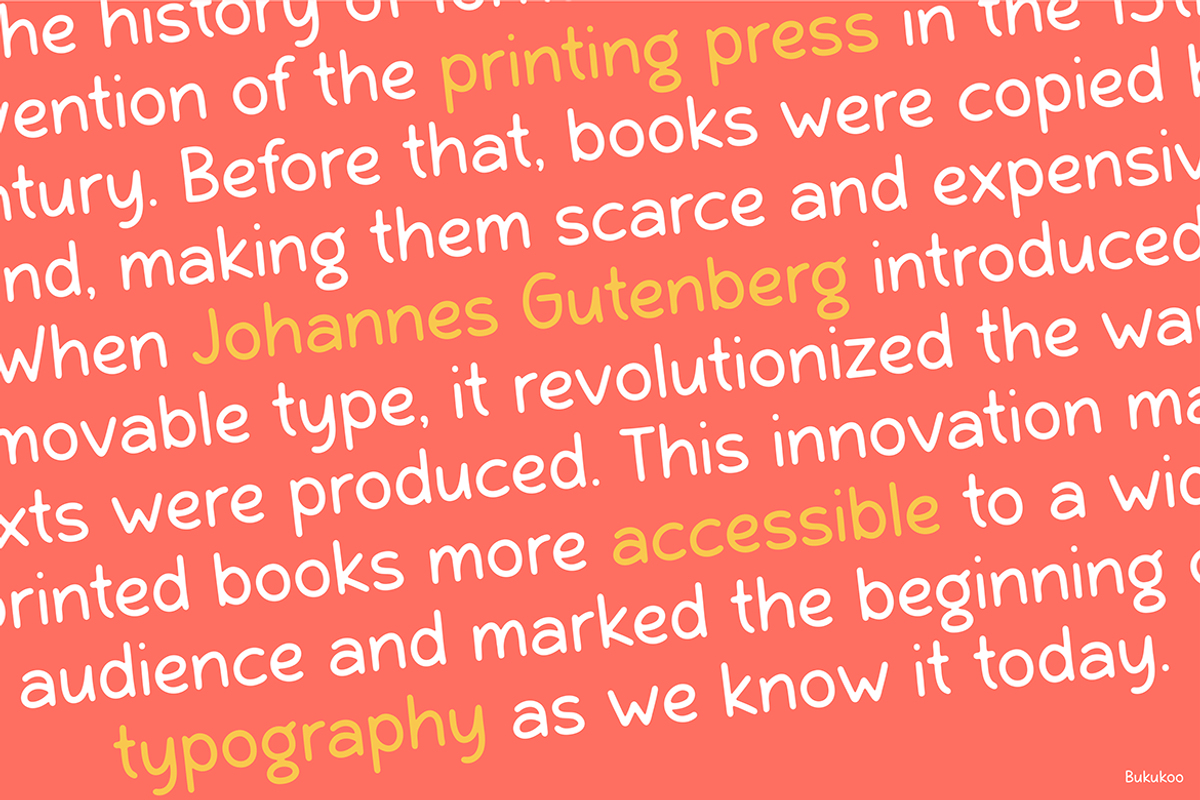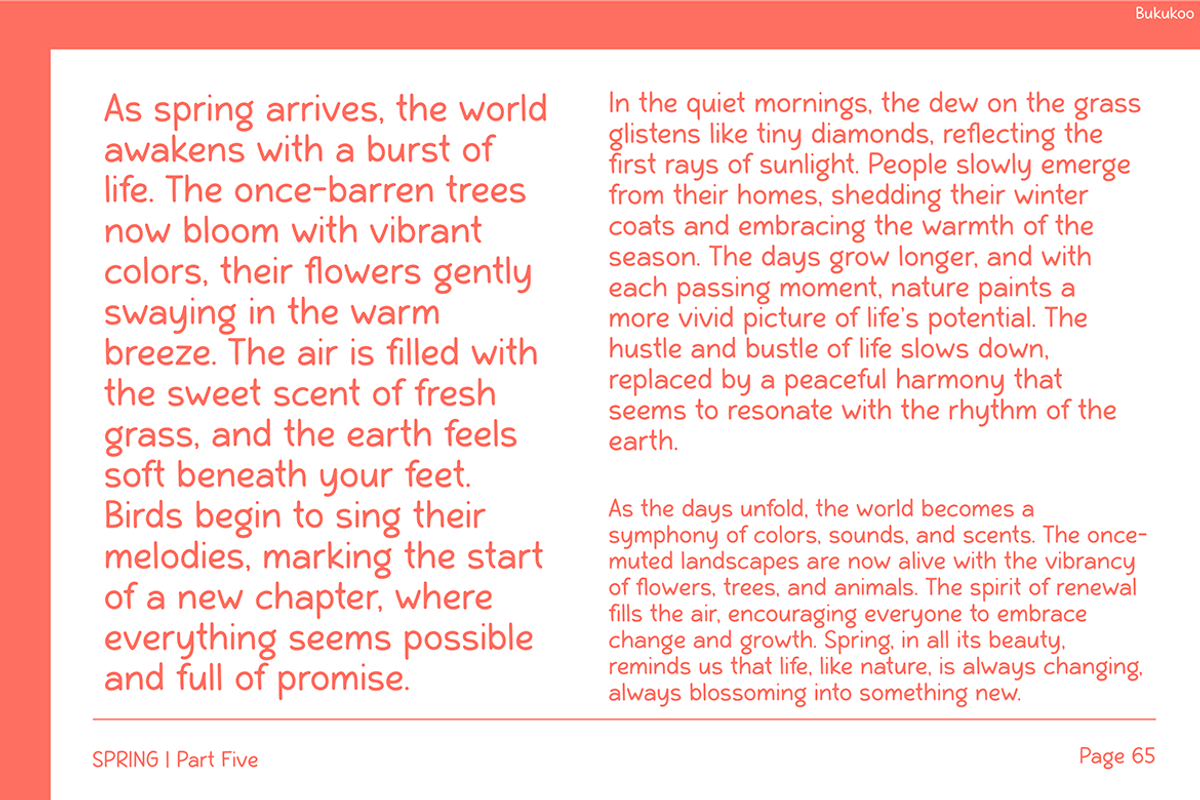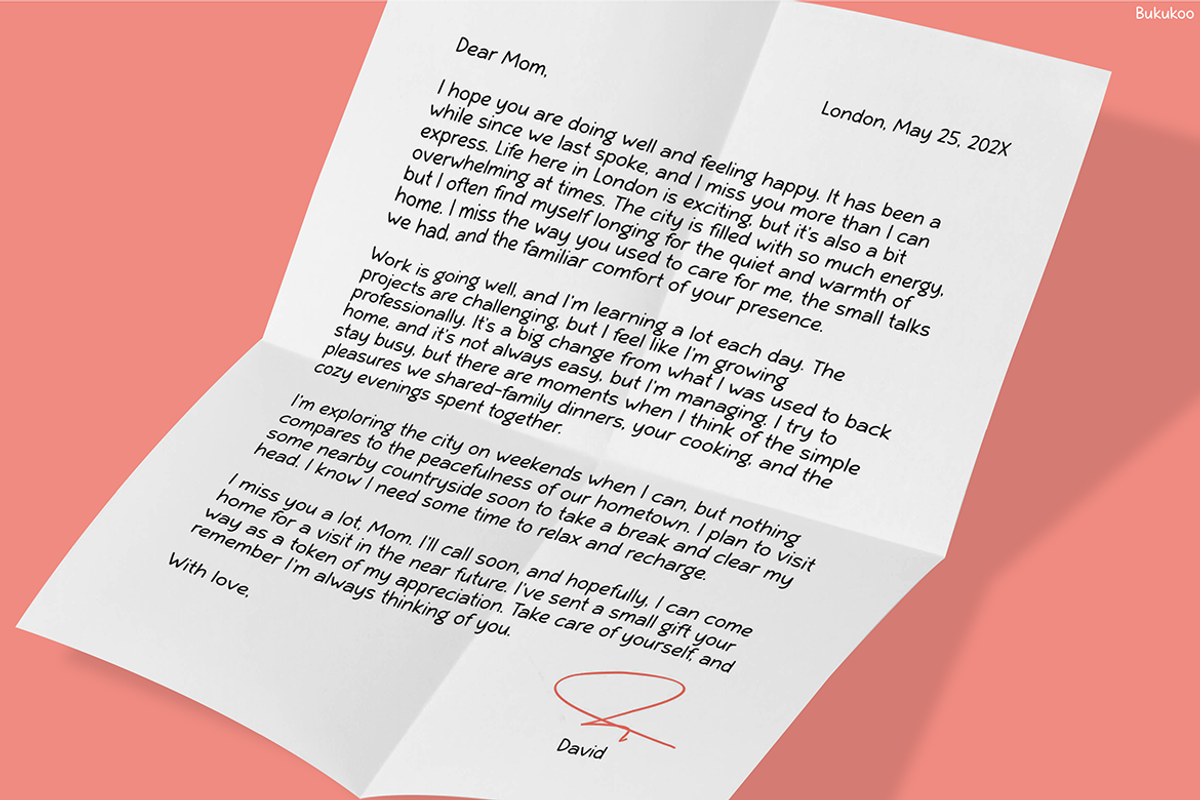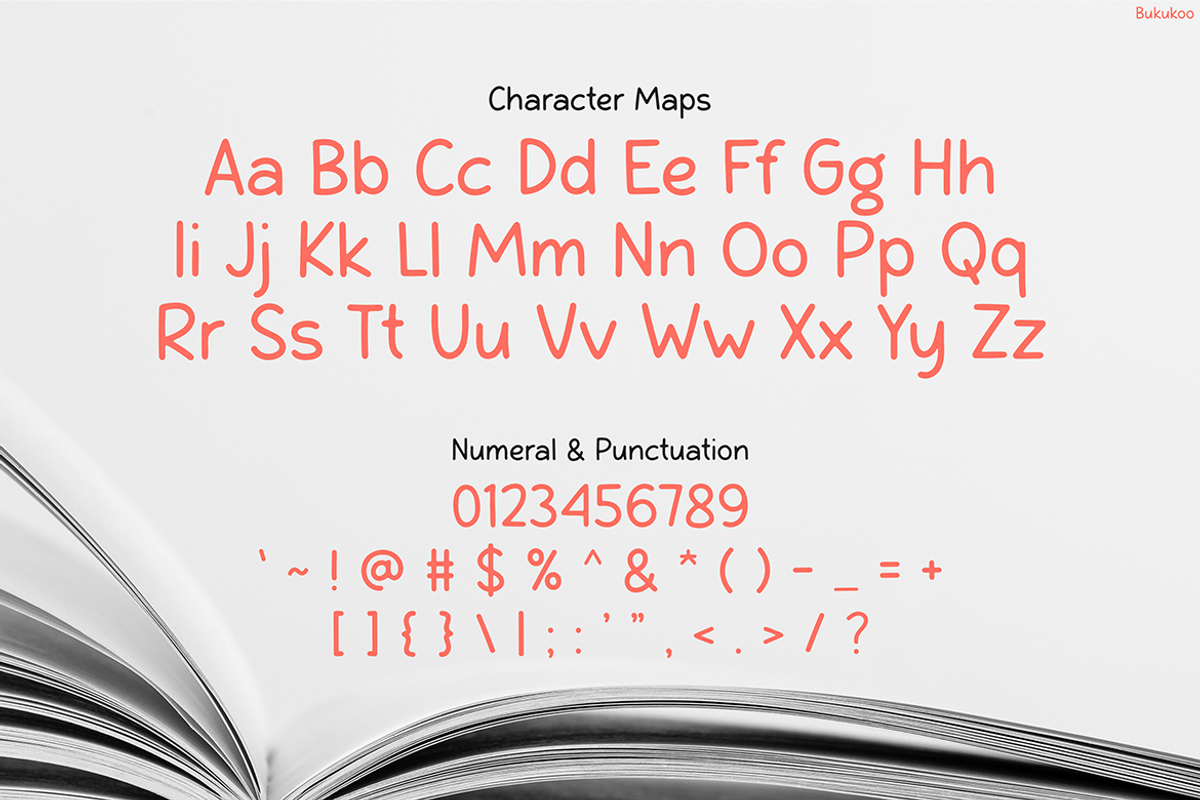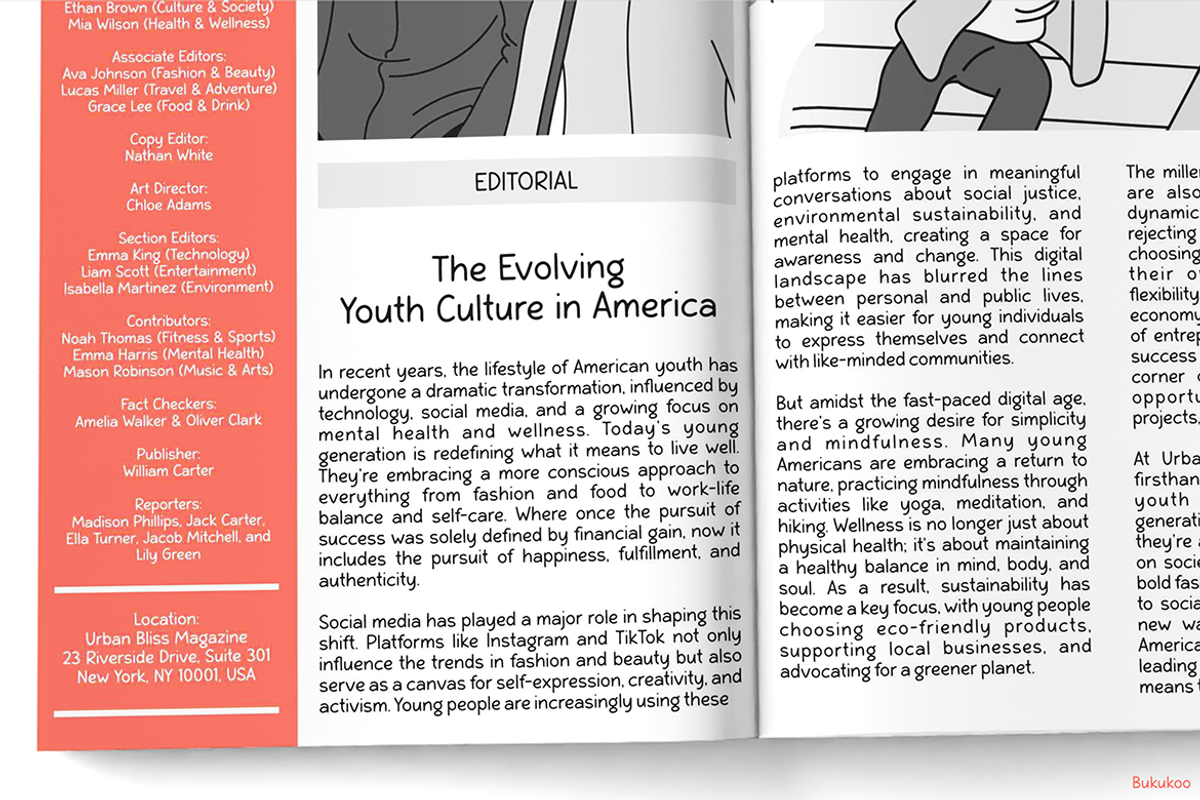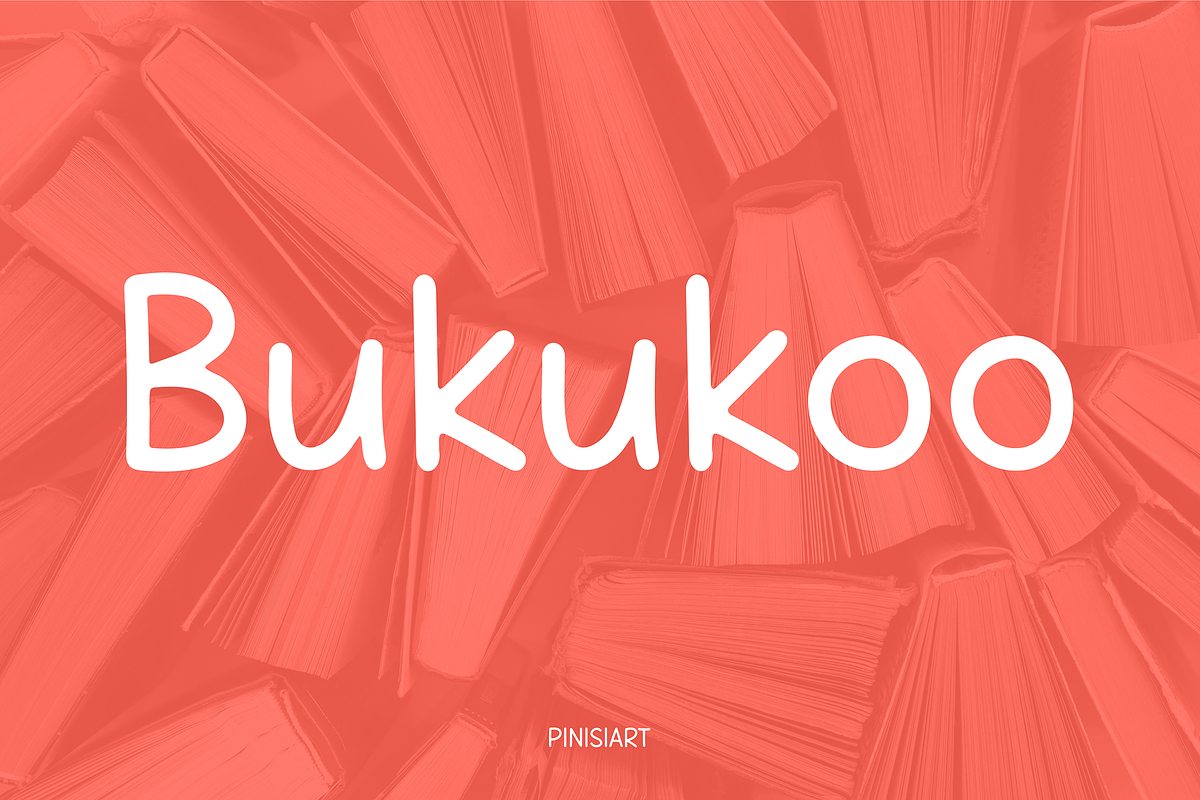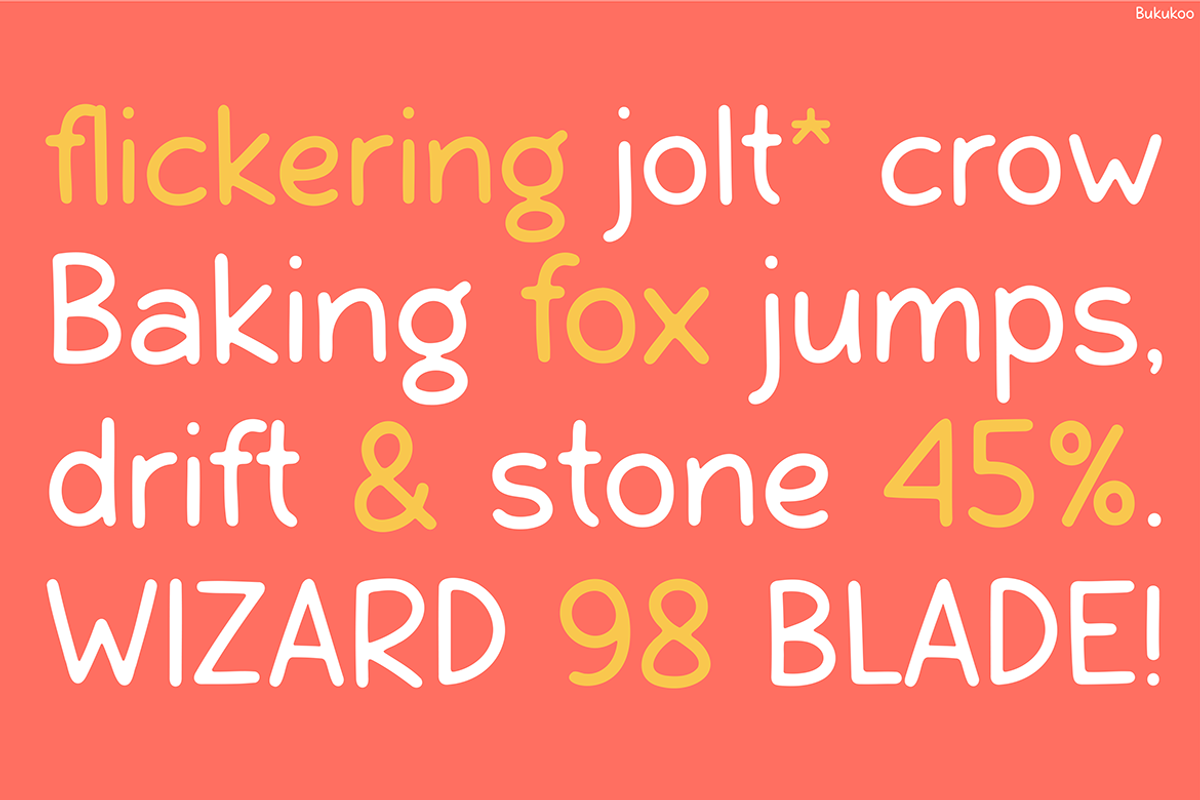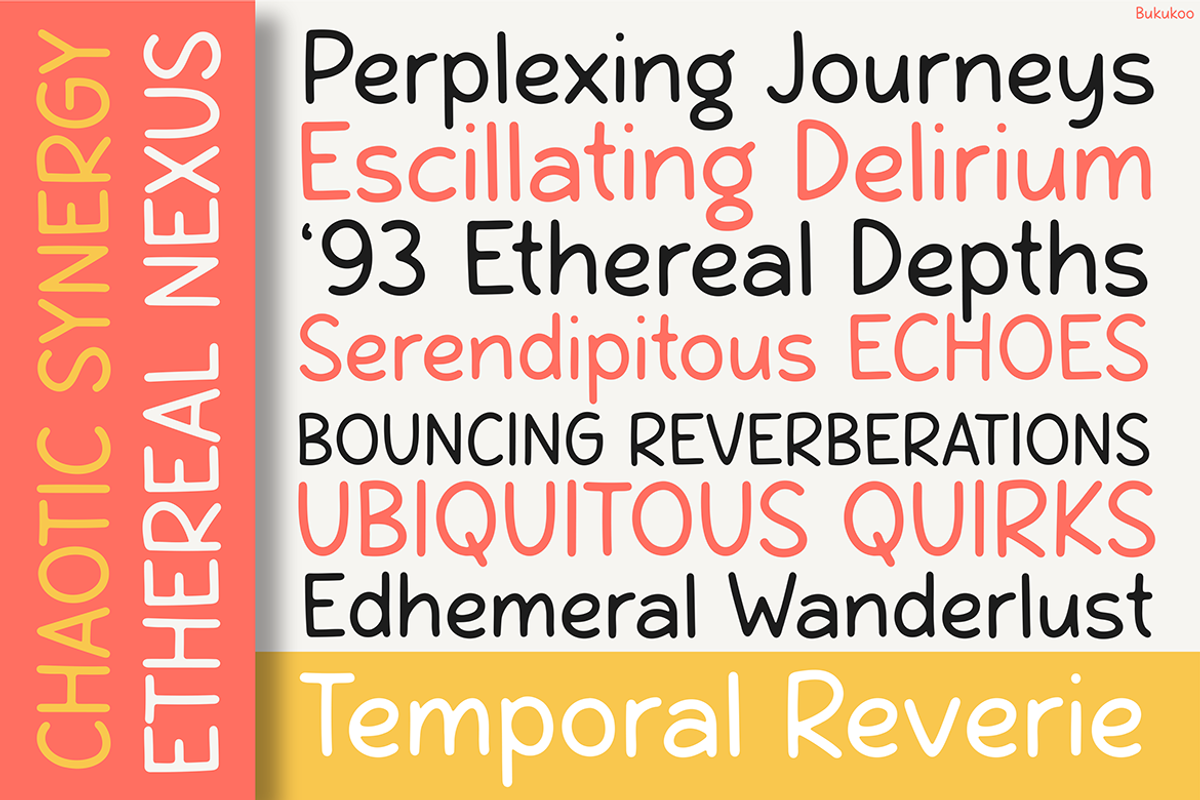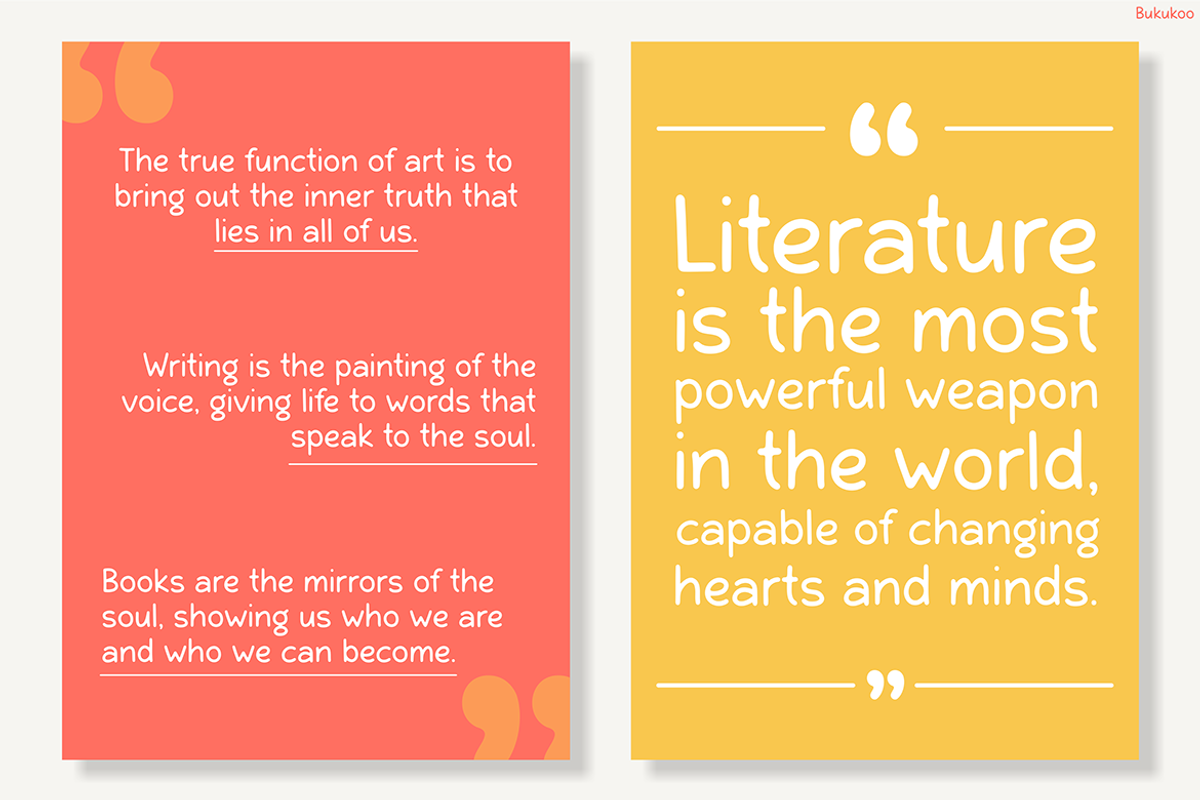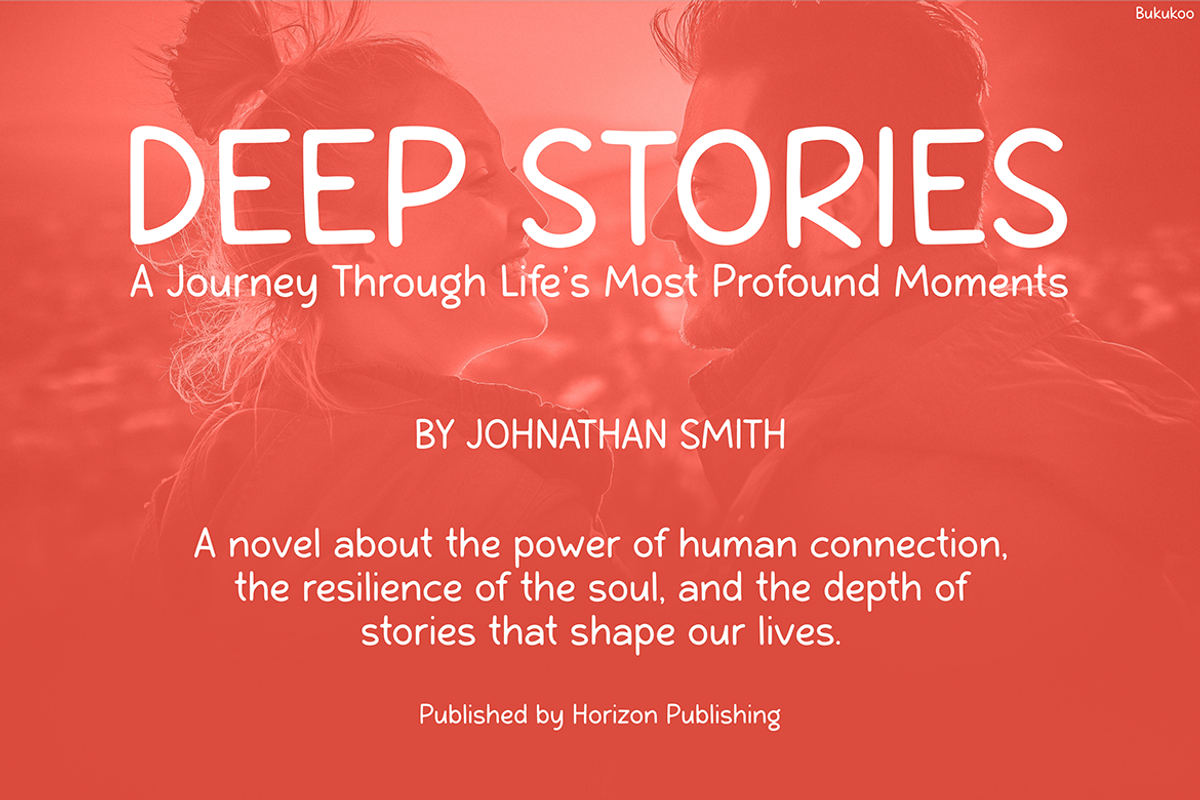
Bukukoo
Kids Font Bukukoo: Playful, Friendly, and Full of Character Kids Font Bukukoo is a delightful and playful typeface designed to bring joy and creativity to any project. With rounded edges, soft curves, and a hand-drawn look, Bukukoo captures childhood imagination. This font feels warm and friendly, making it perfect for adding fun and approachability to designs. Whether for children’s books, educational materials, or playful branding, Bukukoo ensures an engaging and visually appealing experience.
The charm of Bukukoo lies in its balance of playfulness and readability. The letters have a casual, handwritten feel, resembling a child’s scribbles while staying clean and professional. Bold strokes and slightly irregular forms create movement, making the font lively and expressive. Bukukoo’s aesthetic appeal makes it a fantastic choice for projects aiming to be engaging, lighthearted, and full of personality.